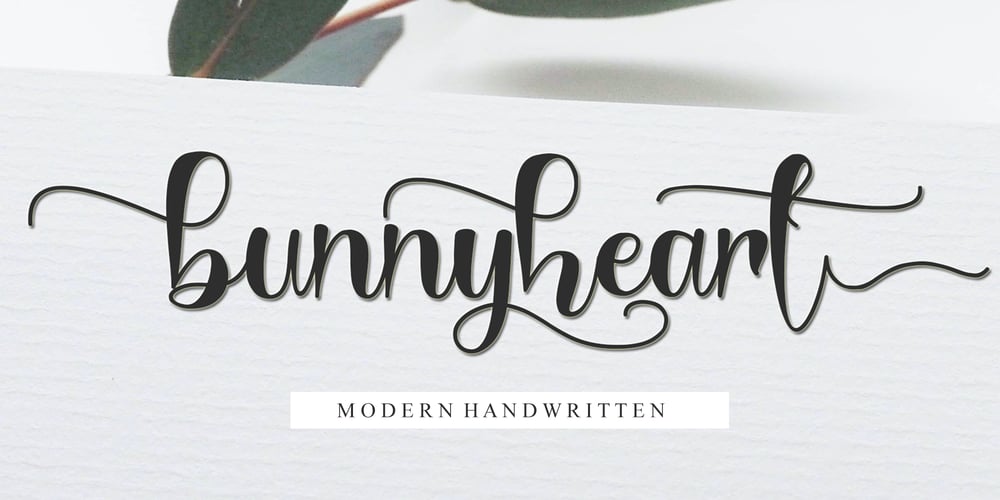
Bunnyheart
Bunnyheart font
Bunnyheart Font Family was designed by Ahmad Afandi and published by Letterafandi Studio. Bunnyheart contains 1 styles and family package options. Bunnyheart is a modern handwritten font. Whether you’re using it for crafting, digital designing, presentations, or greeting card making, it’s perfect!This font is PUA encoded which means you can access all of the glyphs and swashes with ease!